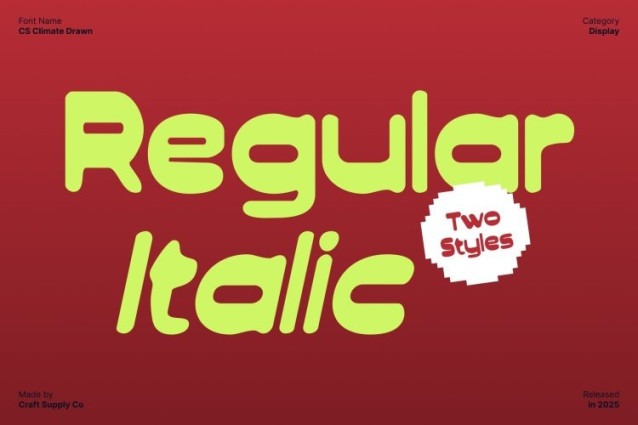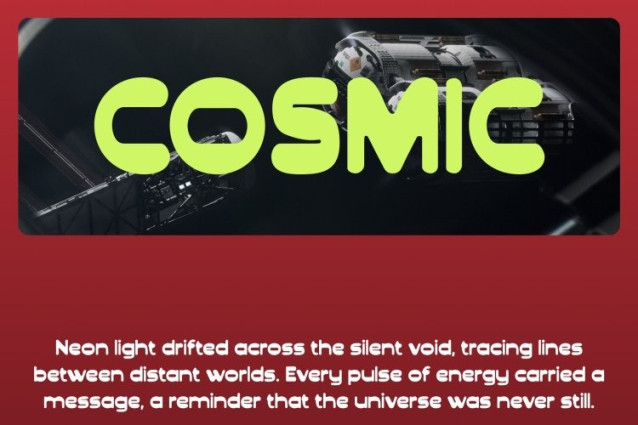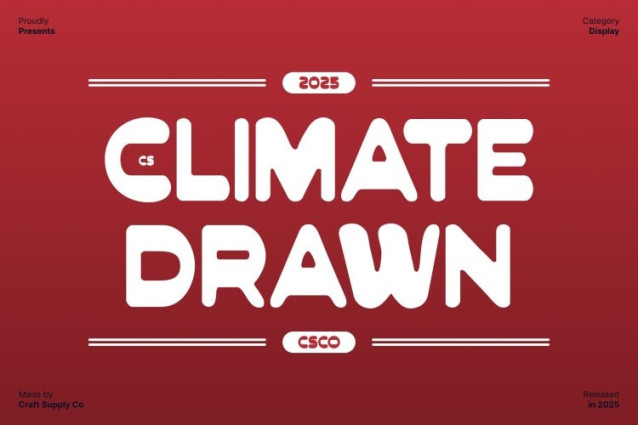
CS Climate Drawn Font
CS Climate Drawn Font This is a reverse contrast sans serif font that delivers bold impact with a stylish modern attitude. Its unique weight distribution creates strong visual tension, making each letter feel confident, expressive, and eye-catching. Designed to stand out, this font brings a fresh perspective to contemporary typography while maintaining a clean and professional structure.
Rounded and Modular Forms with Strong Identity
The rounded edges and modular construction give this font a balanced, rhythmic appearance. These smooth curves soften its bold geometry, creating a design that feels modern yet approachable. The structured forms ensure clarity and readability, while the distinctive shapes add personality and visual interest to every composition.
Inspired by Classic Design Movements
Rooted in classic mid-century and industrial design influences, this font blends timeless principles with modern aesthetics. The reverse contrast style nods to vintage typography, reinterpreted through a contemporary lens. This fusion of old and new makes the font feel both familiar and forward-thinking.
Natural Texture with Hand-Drawn Character
The drawn effect adds a natural, handcrafted texture that sets this font apart. This subtle irregularity brings warmth and uniqueness to the font, giving designs a more human and expressive feel. Perfect for distinctive branding, logos, packaging, and promotional visuals, delivers bold originality with authentic character.